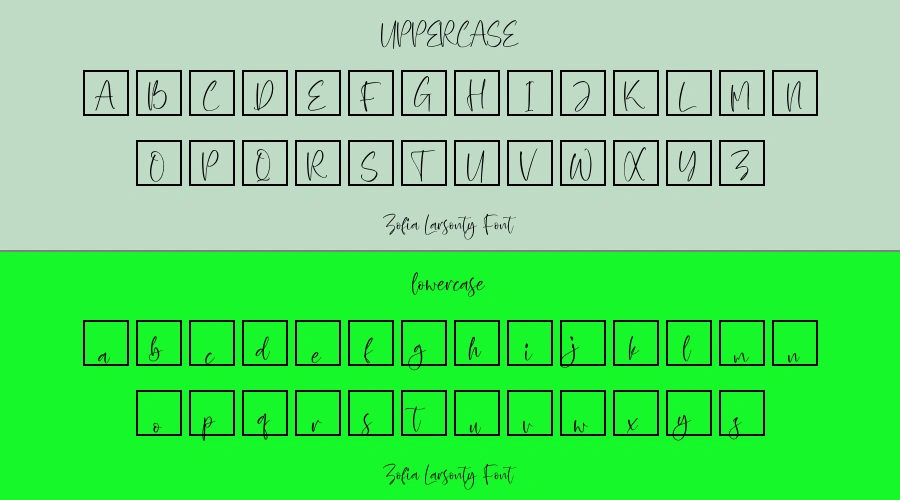
About Zofia Larsonty Font
Designed with precision, Zofia Larsonty Font merges distinctive details with clarity in every character. This versatility makes it particularly effective for wayfinding systems, where refinement and design heritage directly impact communication quality. Each letterform demonstrates meticulous craftsmanship.
Technical excellence shines through elements like rounded corners and tabular figures, enhancing typographic versatility. In colophons settings, Zofia Larsonty Font proves its worth through superior color application. The thoughtful execution of x-height and standards alignment ensures professional results.